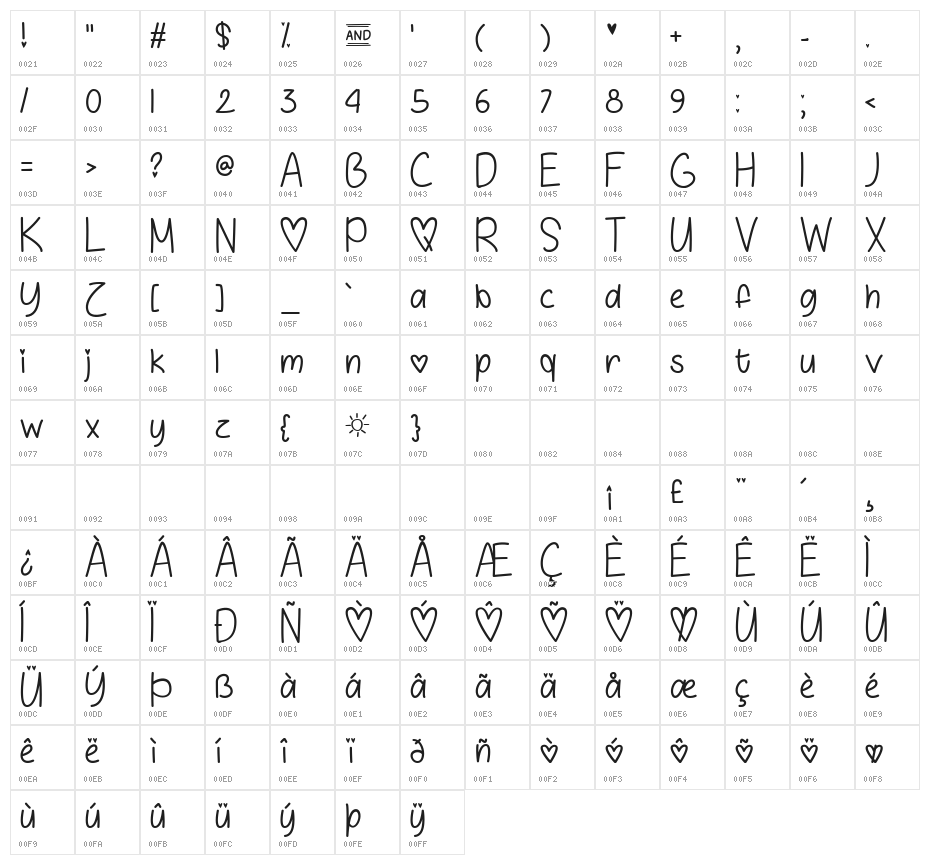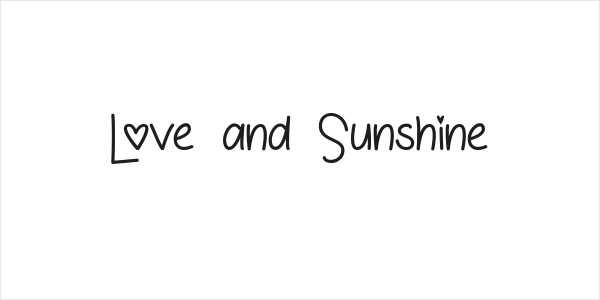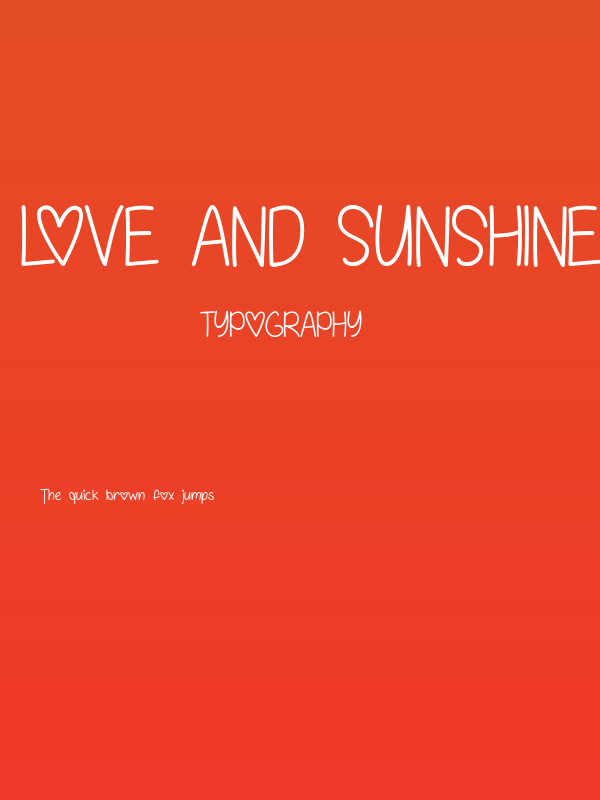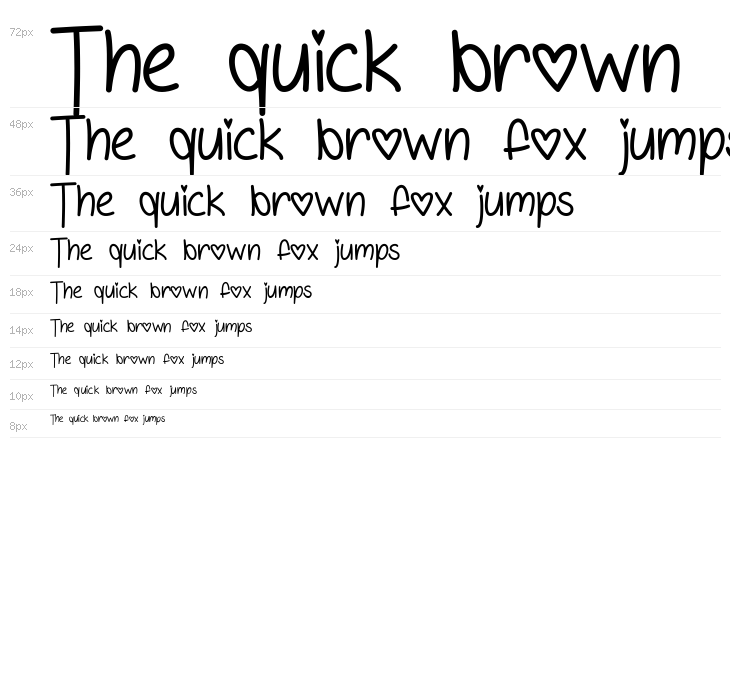
Love and Sunshine Font
Love and Sunshine Description
This playful and whimsical font features a handwritten style with a touch of romance, evident in its heart-shaped elements replacing the letter 'O'. The characters are rounded and slightly irregular, giving a friendly and approachable feel. The uppercase letters are tall and slender, while the lowercase letters maintain a consistent flow with gentle curves. Numbers are clear and easy to read, matching the overall playful aesthetic. Special characters include hearts and decorative elements, adding to the font's charm. This font is perfect for projects that require a personal and heartfelt touch.
| Overall Style | Whimsical |
| Use Case | Greeting cards, Invitations, Playful branding |
| Proposed Projects | Ideal for greeting cards, wedding invitations, love-themed projects, and playful branding. |